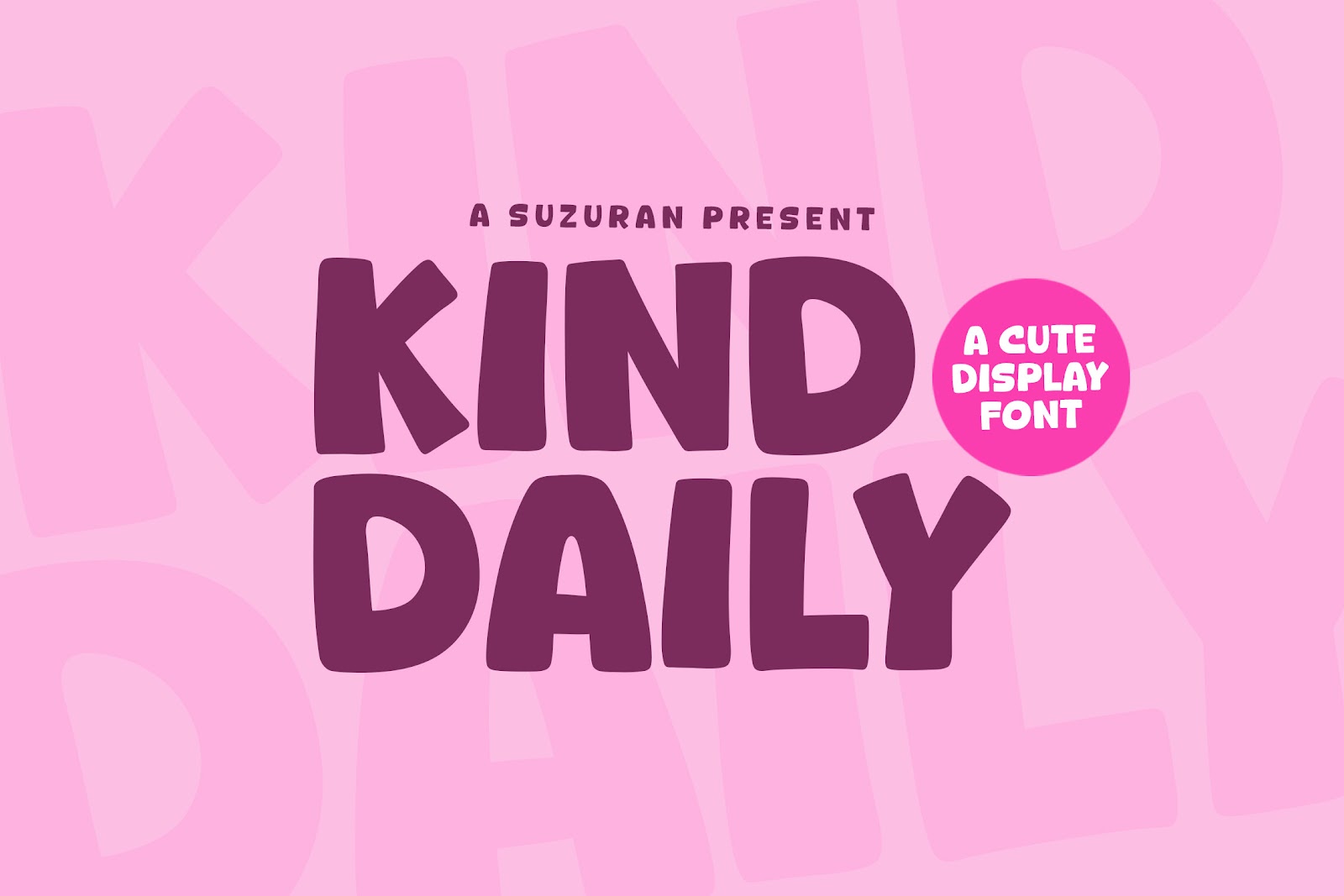
Kind Daily Font is a modern and distinctive display typeface with a charming twist, designed to add a delightful personality to any creative project. Its playful yet elegant style makes it a great choice for posters, logos, magazines, book covers, banners, and more. Whether you're crafting bold headlines or eye-catching branding, Kind Daily Font brings a fresh, stylish edge to your design work.
This versatile font seamlessly adapts to a wide range of applications, from digital layouts to print materials. Its unique letterforms ensure your message is delivered with character and flair, helping your designs capture attention and leave a lasting impression.
Add Kind Daily Font to your creative toolkit and discover how it transforms ordinary projects into stunning visual statements. Perfect for designers looking for a balance of modern aesthetics and originality, this font is sure to stand out in any context.